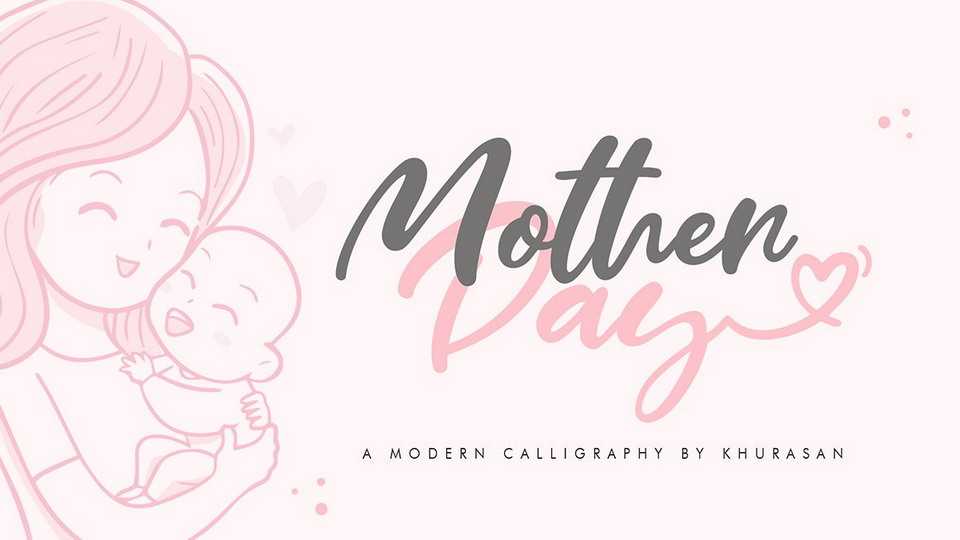
Download Mother Day font, a beautiful handwritten font with lowely swashes. It’s suitable for logo, branding, greeting card, poster and any design that you create.